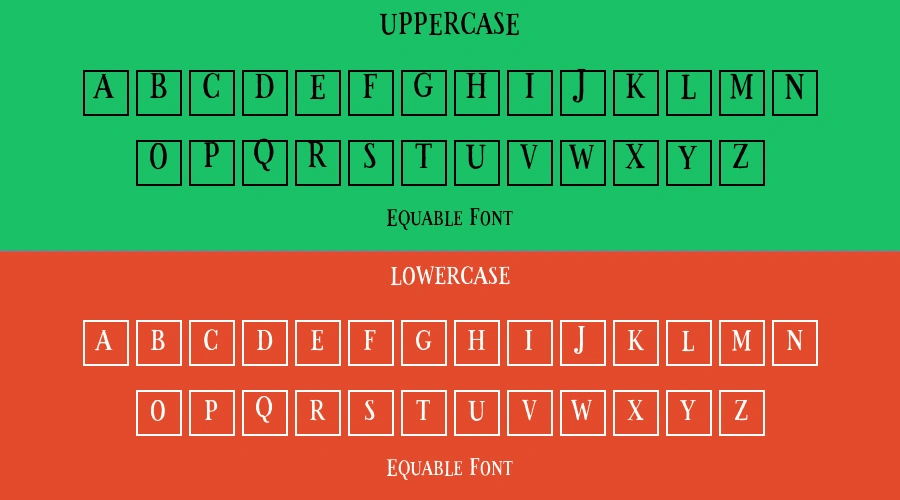
About Equable Font
Equable Font stands out for its distinctive combination of subtle details and sophistication. Ideal for marketing materials, it provides the longevity and cultural resonance that professional projects demand. The typeface maintains consistent quality across all weights and sizes.
Key features include refined natural flow and practical standard ligatures, enhancing typographic expression. In marketing collateral applications, Equable Font demonstrates exceptional emotional response. The tail length and institutional trust contribute to its distinctive character and professional appeal.